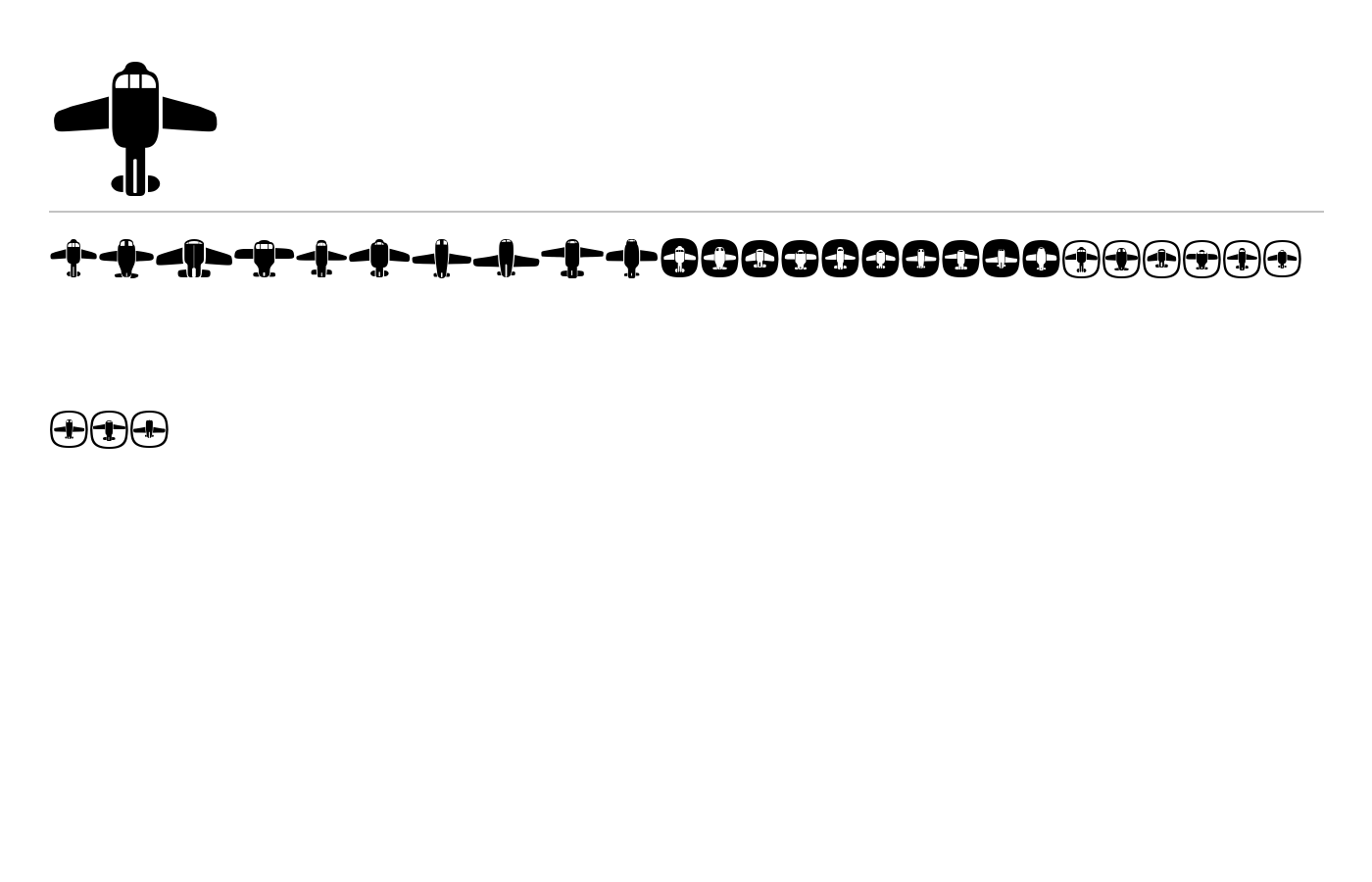
Airplanes Font is a playful and distinctive symbol font that creatively uses simple airplane icons to form each character, making it ideal for aviation-themed projects or creative branding. With its bold, minimal shapes and consistent silhouettes, this font adds a fun and modern touch to designs like logos, posters, and signage where a unique, visual impact is desired. It works best in decorative and display uses rather than body text, capturing attention with its iconic and imaginative style.
Airplanes Font
About Airplanes Font
| Font family | Airplanes Font |